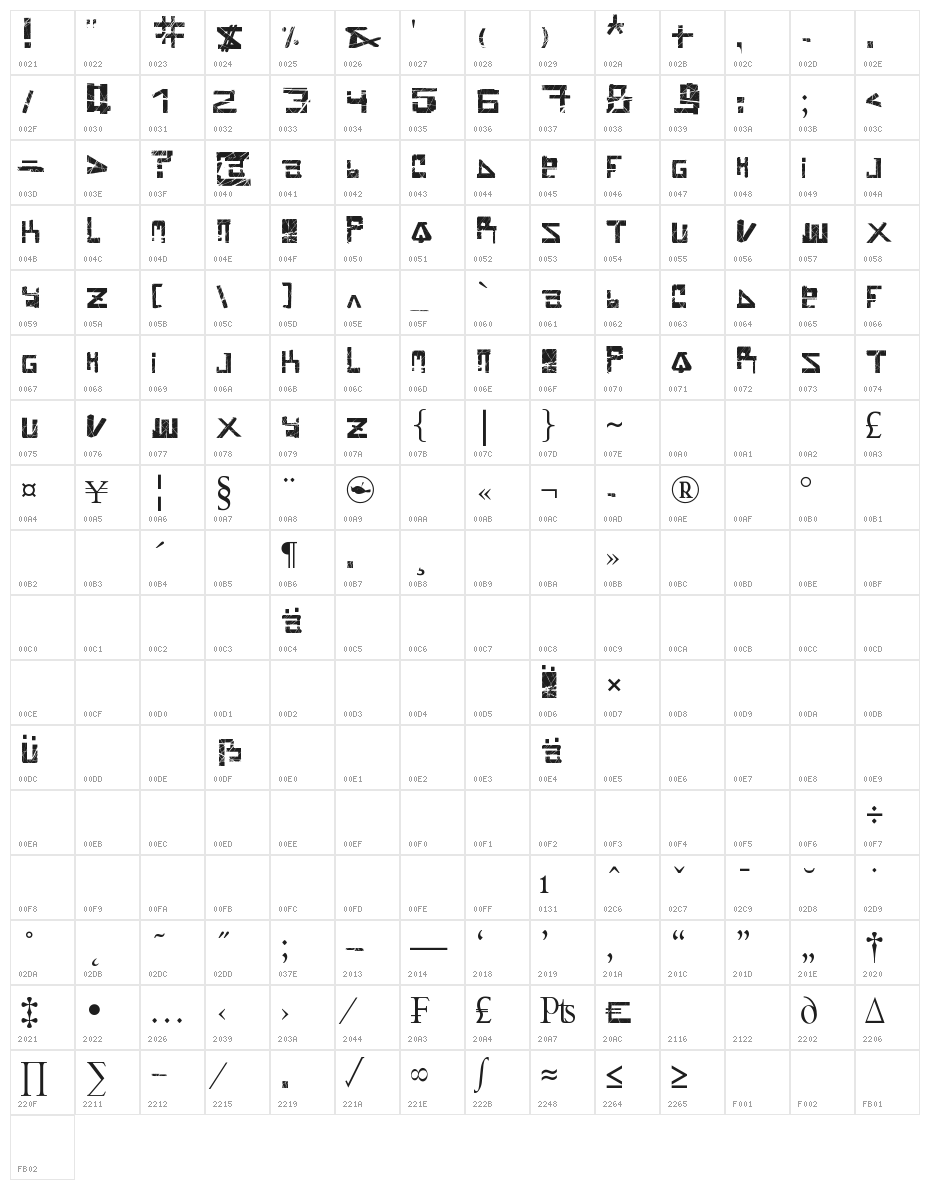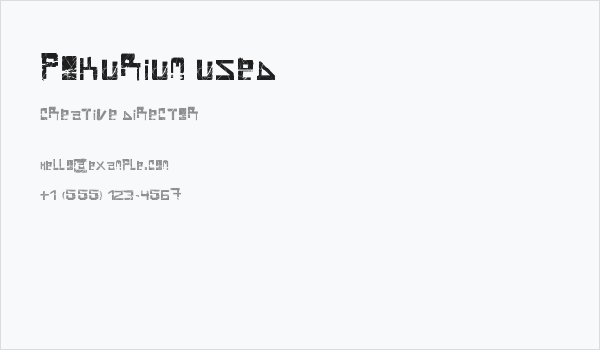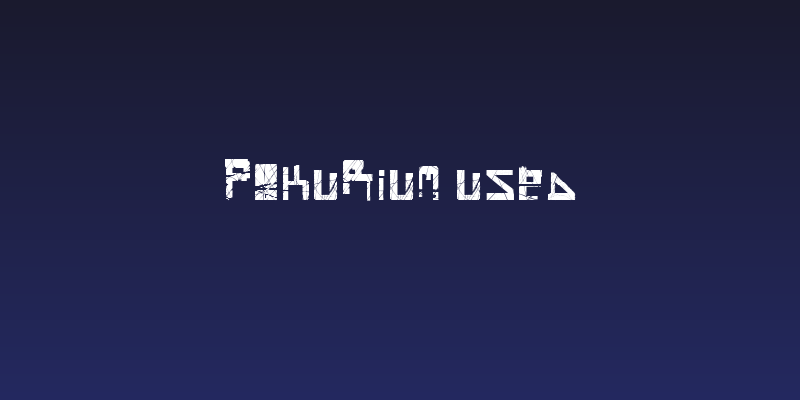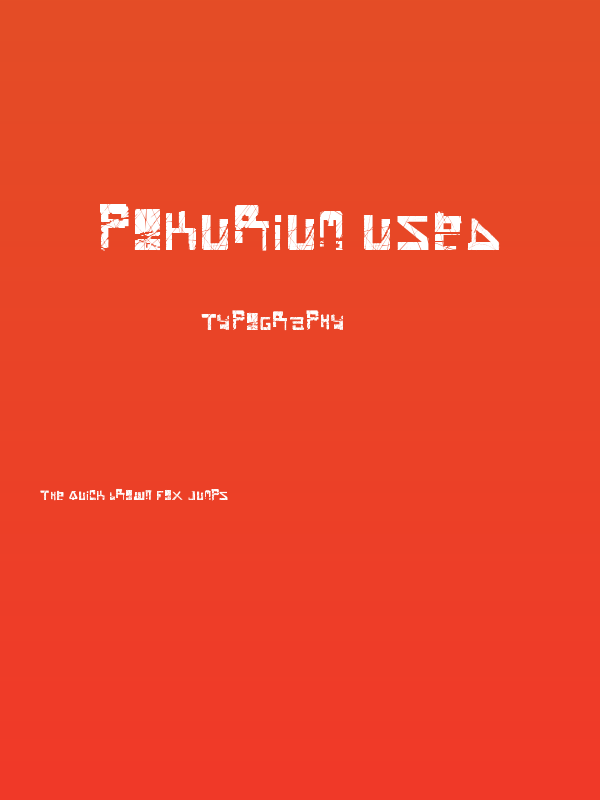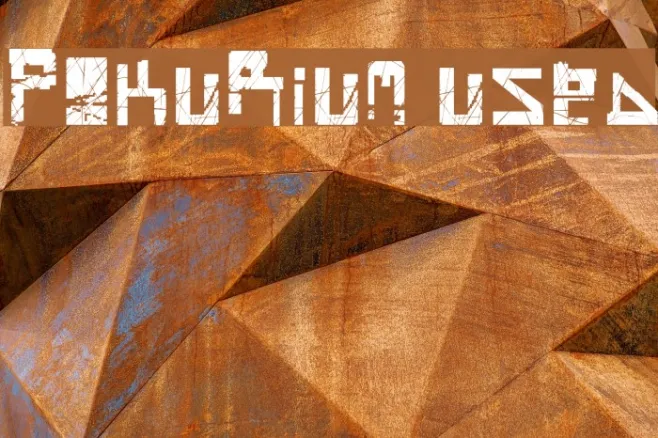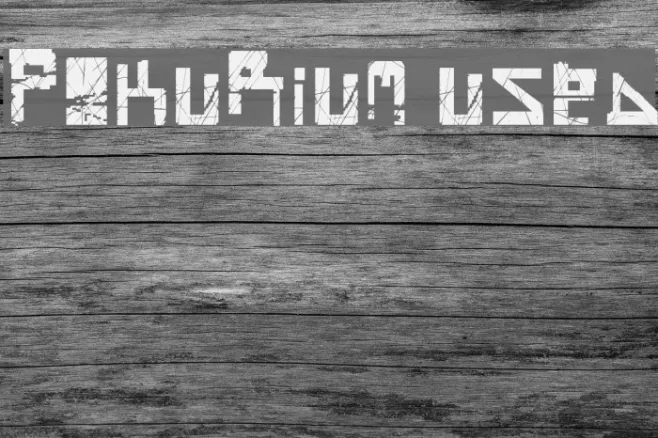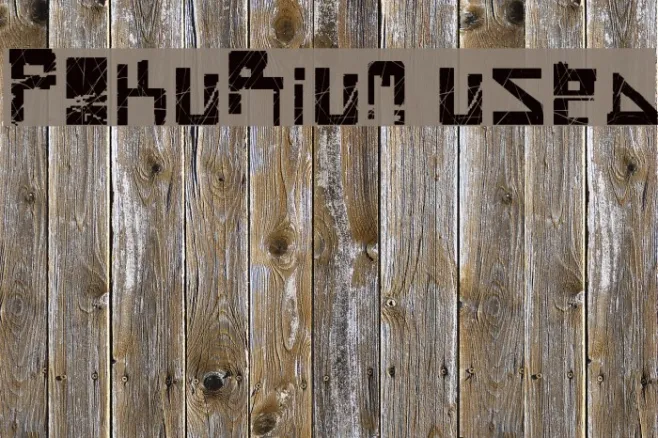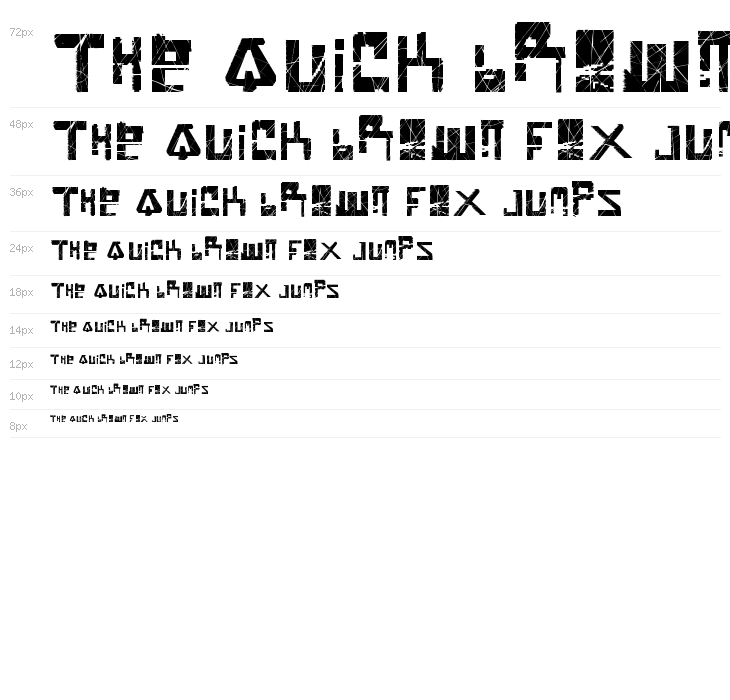
Pokurium Used Font
Pokurium Used Description
This font features a highly distinctive and fragmented design, characterized by a shattered or broken glass effect. Each character is composed of angular, geometric shapes that create an edgy and dynamic appearance. The font maintains a consistent level of complexity across all characters, making it visually striking and unique. The uppercase and lowercase letters, as well as numbers and special characters, all share this fragmented style, ensuring uniformity throughout. This font is ideal for projects that require a bold and unconventional look, capturing attention with its intricate and chaotic design.
| Proposed Projects | Ideal for album covers, posters, video game graphics, and any project needing a bold, edgy aesthetic. |